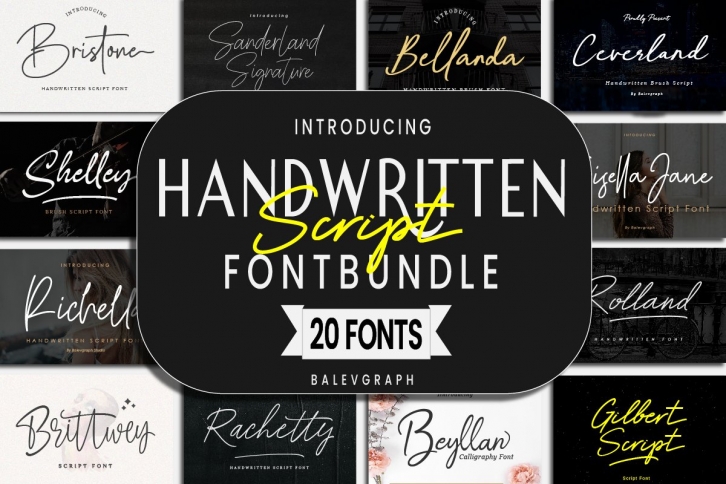
Bundle is a gorgeous font that was realeased on September 21, 2021. The font can be used in many style contexts and design environments. Perfect for invitations, magazines, websites, logos, and more! It was designed by Balevgraph Studio and the file size is 12.9 MB. Thanks for checking out this font!